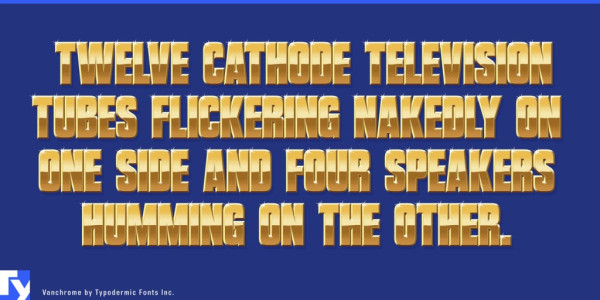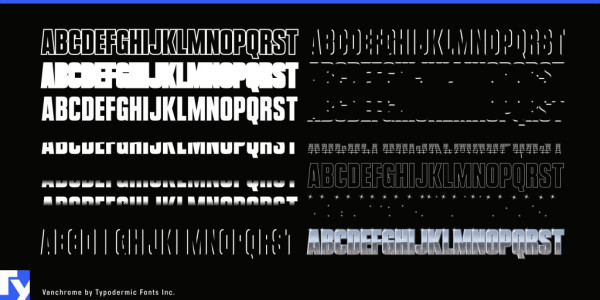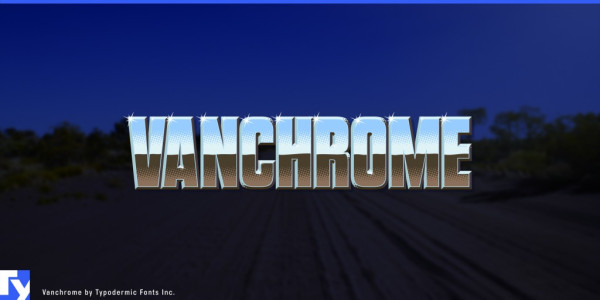
Vanchrome Sans Serif Font
Vanchrome Sans Serif Font is a compact sans-serif headliner with chromatic layers. Create a layer in your design application, copy the layer, change the style, change the colors. Some applications such as Photoshop might need manual vertical alignment so a crosshair in the ◊ character position has been included. Due to the way Vanchrome’s bevel shading is designed, the Left and Right bevels should be placed under the Up and Down bevels.